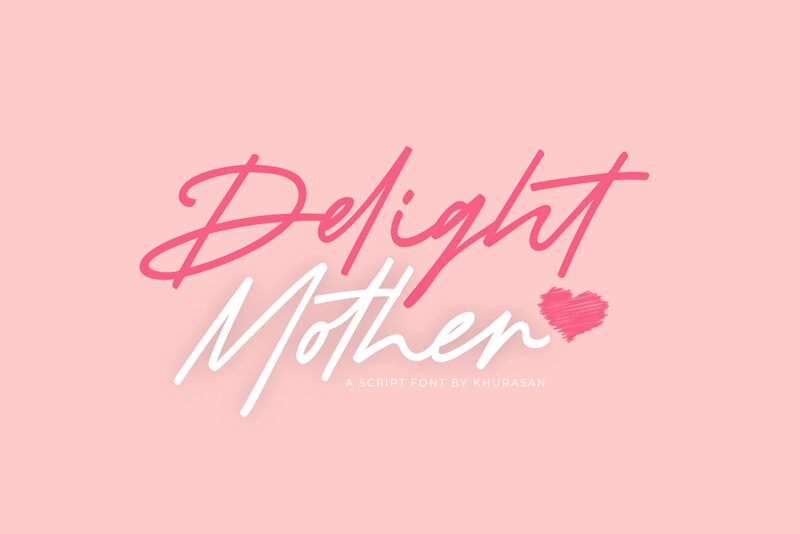
Delight Mother
Delight Mother is a stunning handwritten signature font by Khurasan that adds a touch of elegance and sophistication to any project. With its light weight, this font is perfect for projects that require a delicate and feminine touch, such as wedding invitations, greeting cards, or fashion branding. The fluid strokes of Delight Mother create an authentic handcrafted feel that will elevate your designs to the next level. Whether you're creating an elegant logo or designing social media graphics, Delight Mother is the perfect choice for adding some personality and style to your projects.